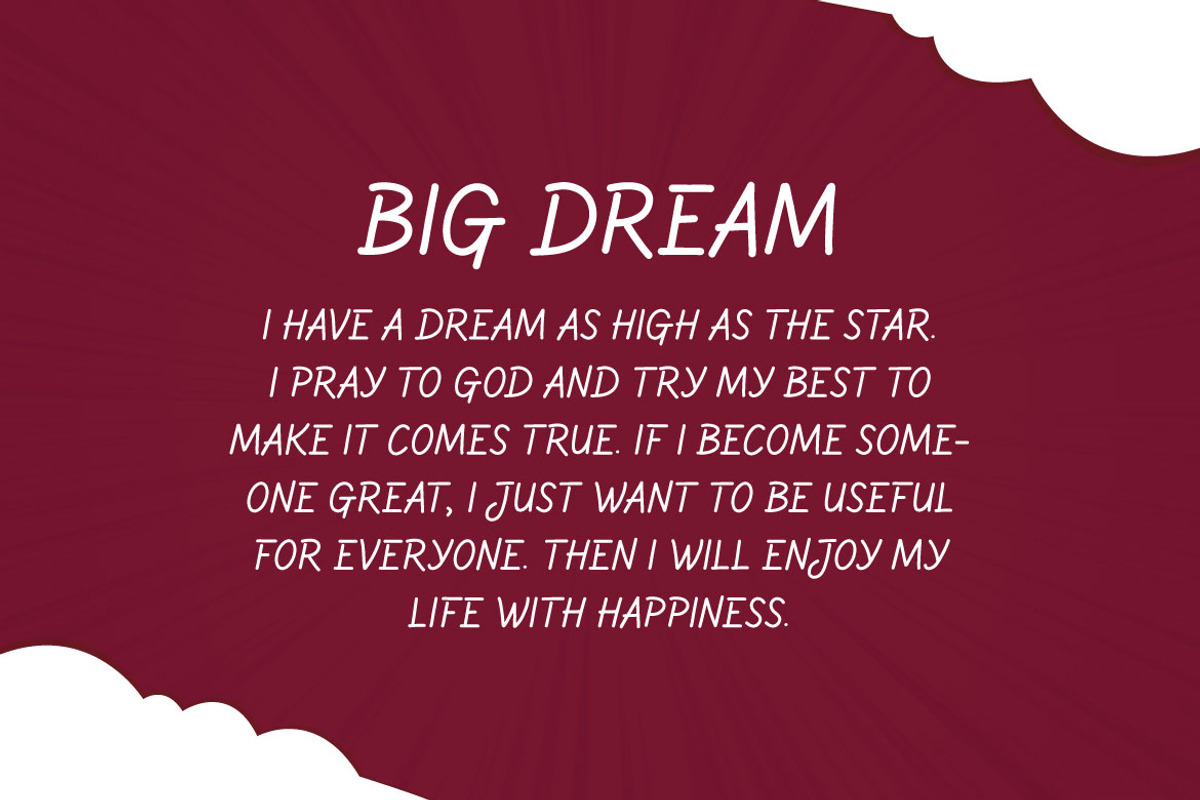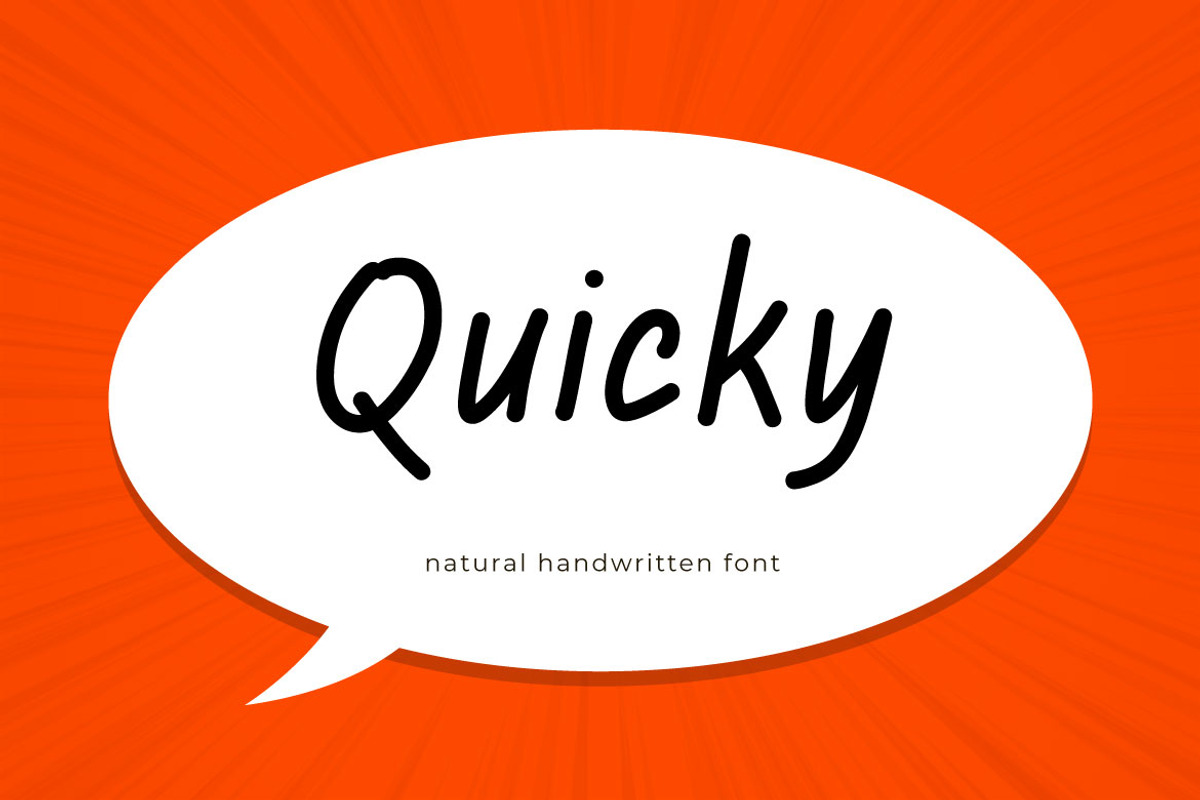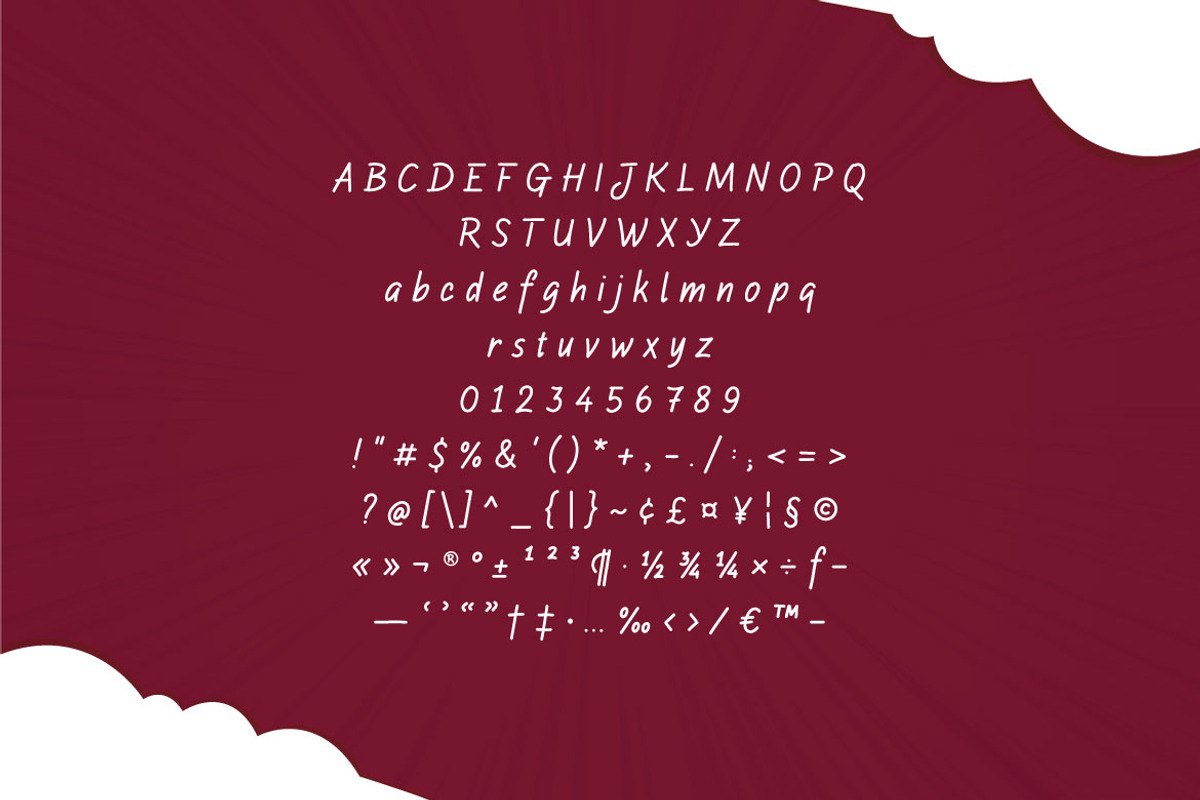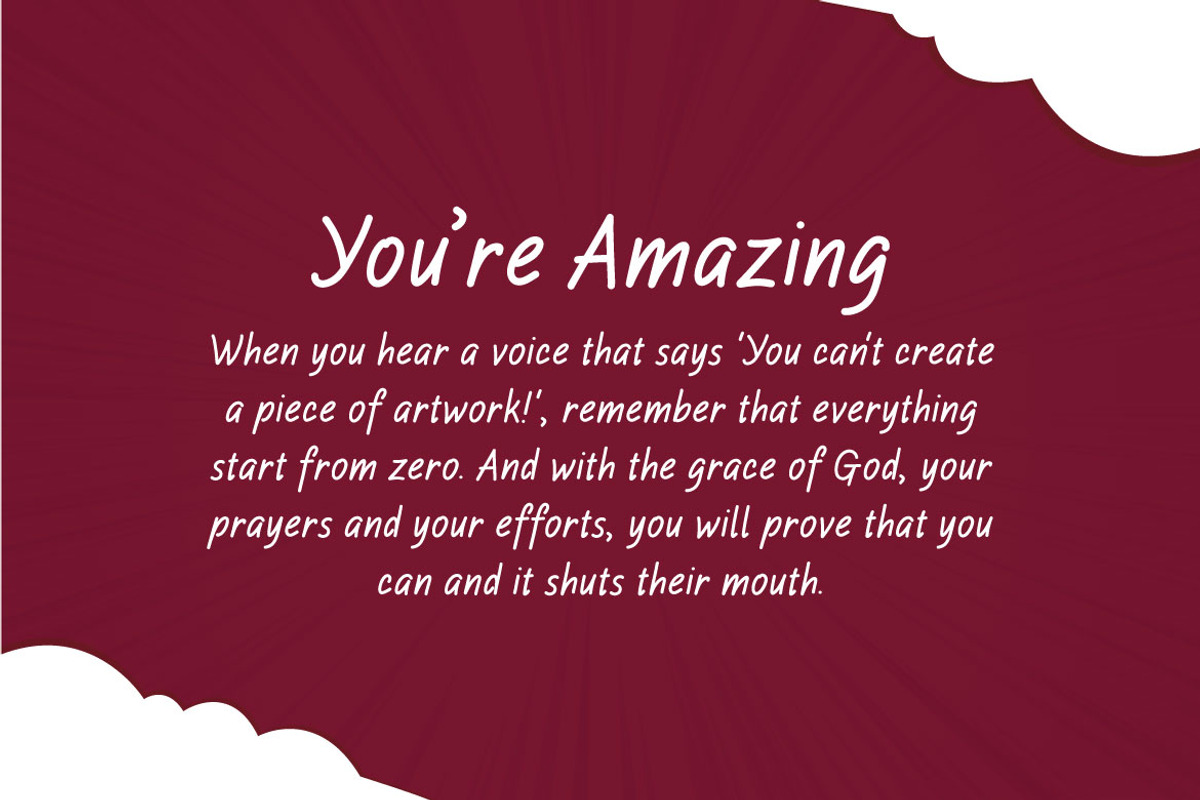
Quicky - Modern Sans Serif Font
Elevate your design projects with the contemporary charm of Quicky, a cutting-edge sans-serif font that seamlessly blends modern aesthetics with timeless functionality. This typeface is meticulously crafted to meet the demands of today's dynamic design landscape, making it the perfect choice for a wide range of applications.
Quicky boasts a clean and minimalistic design, ensuring clarity and readability in various design contexts. The sleek lines and well-balanced proportions contribute to a professional and sophisticated appearance.